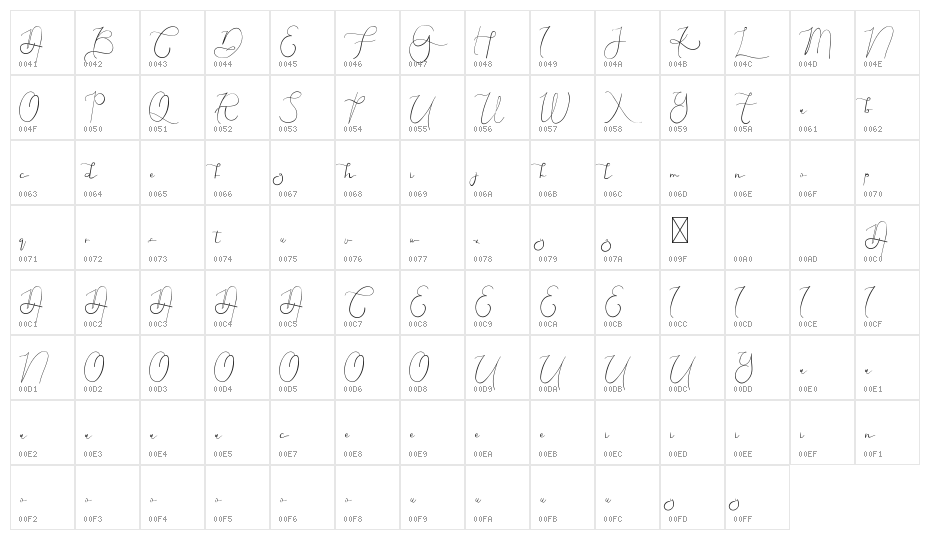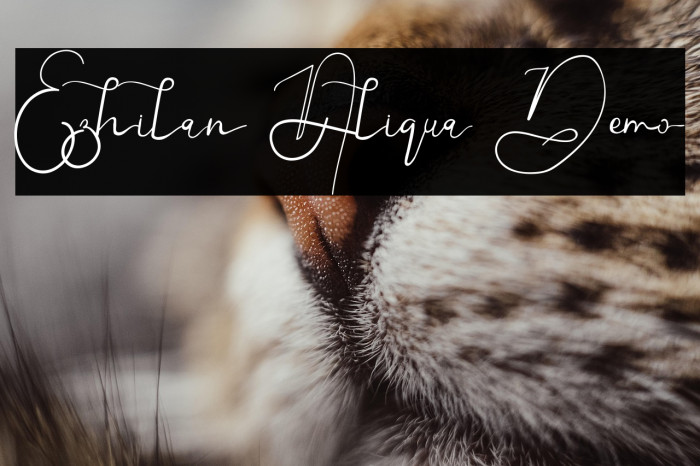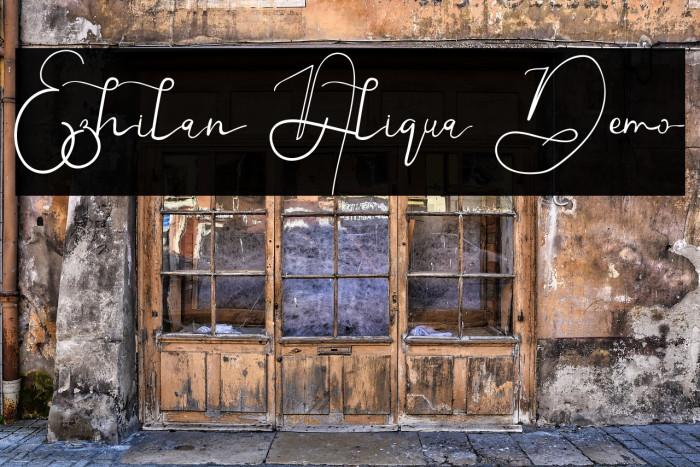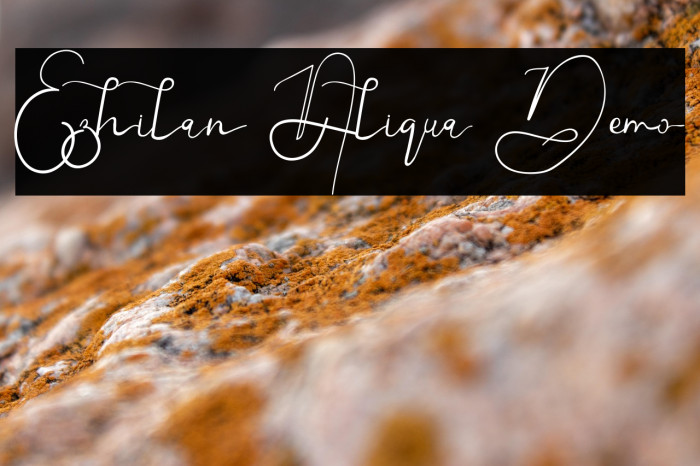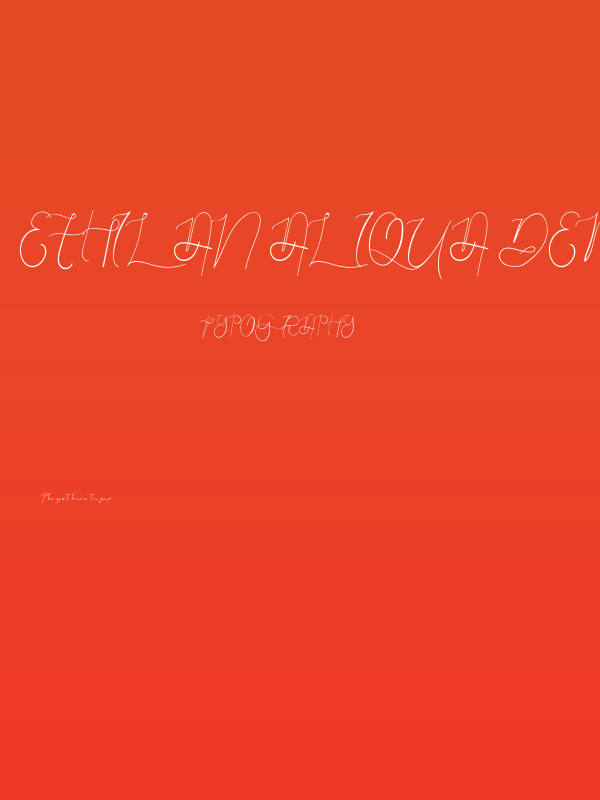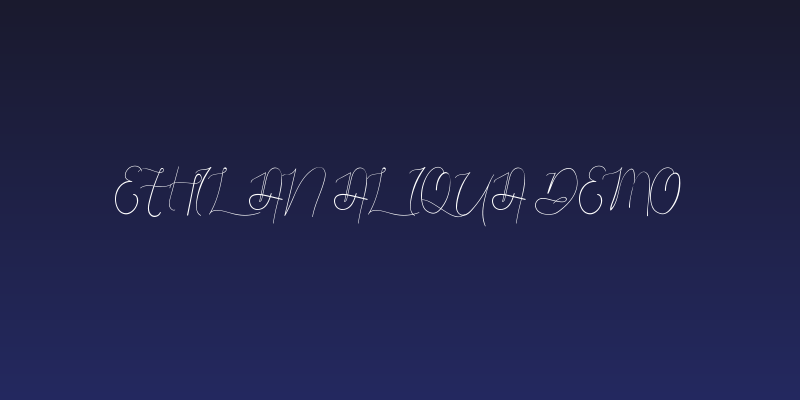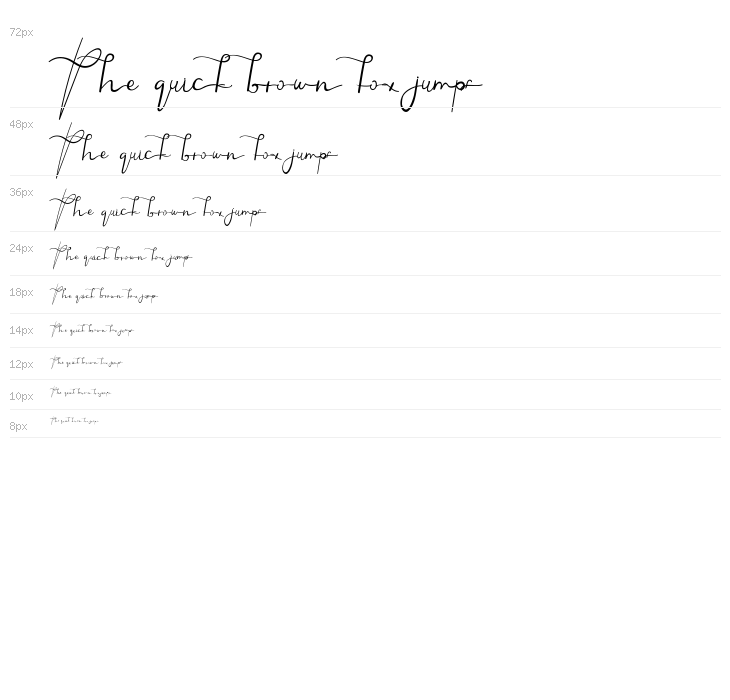
Ezhilan Aliqua Demo Font
Ezhilan Aliqua Demo Description
This font features an elegant and flowing script style, characterized by its delicate and intricate letterforms. The uppercase letters are tall and slender, with graceful loops and swashes that give a sense of movement and fluidity. The lowercase letters maintain a consistent style, with smooth curves and a slightly whimsical touch. The overall design is sophisticated and artistic, making it suitable for projects that require a touch of elegance and creativity. The thin strokes and high contrast between thick and thin lines add to its refined appearance.
| Overall Style | Elegant, Artistic |
| Use Case | Headlines, Invitations, Decorative text |
| Proposed Projects | Ideal for wedding invitations, elegant branding, artistic posters, and decorative headings. |